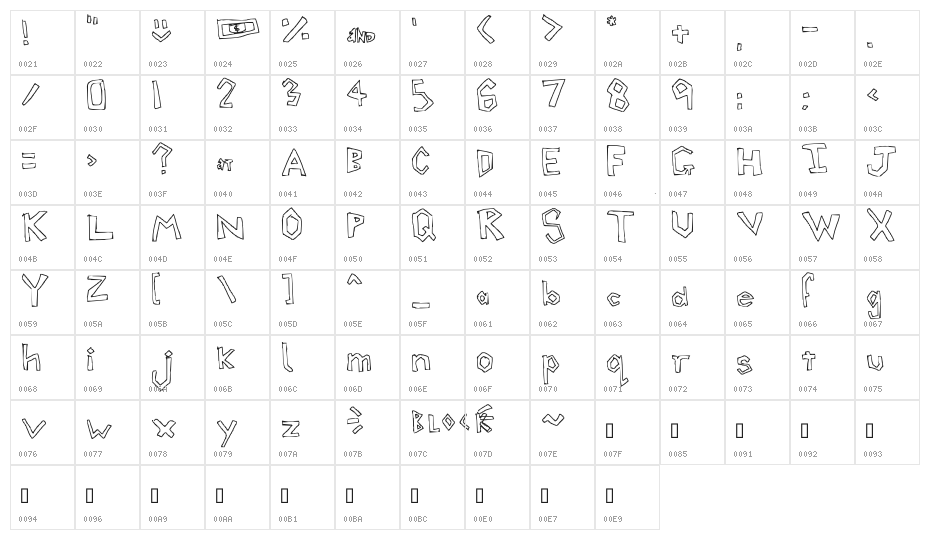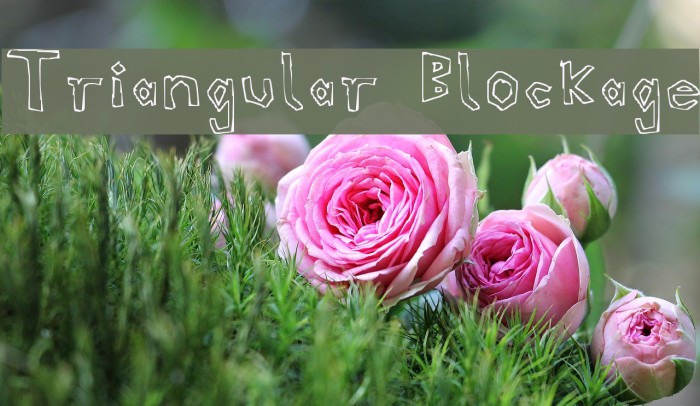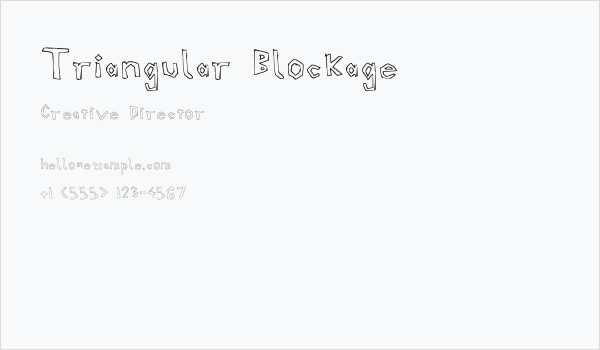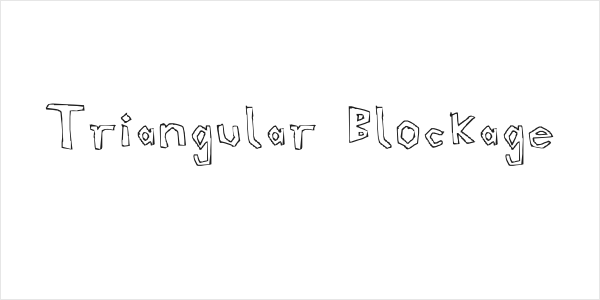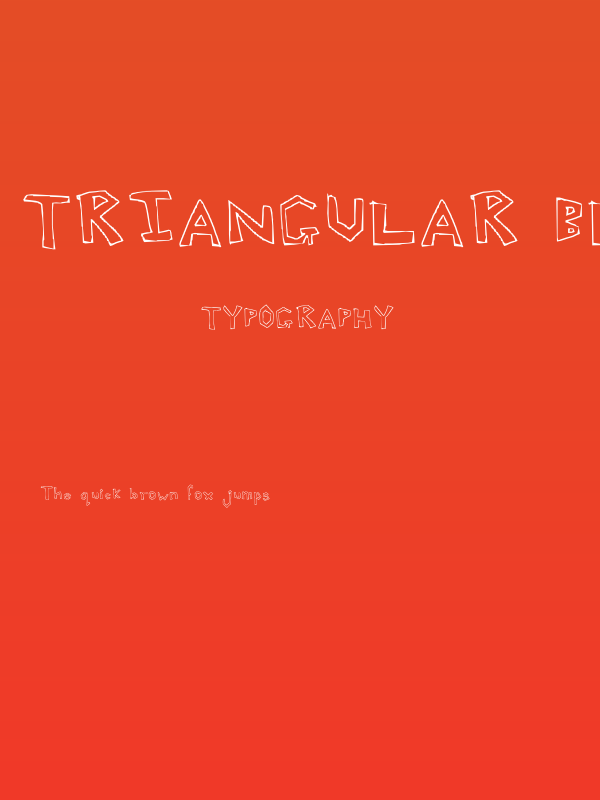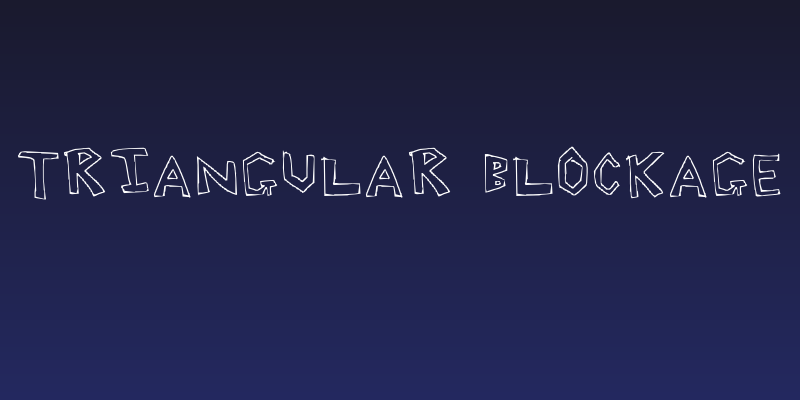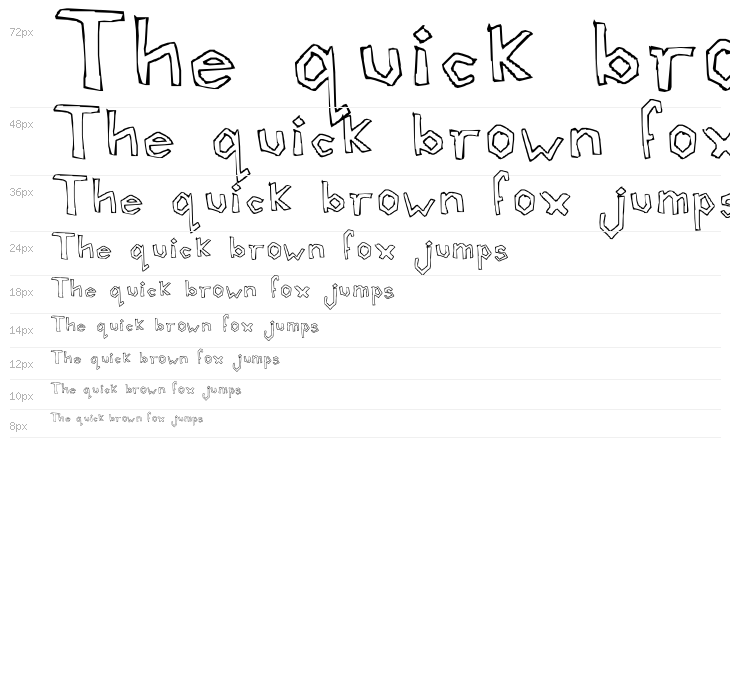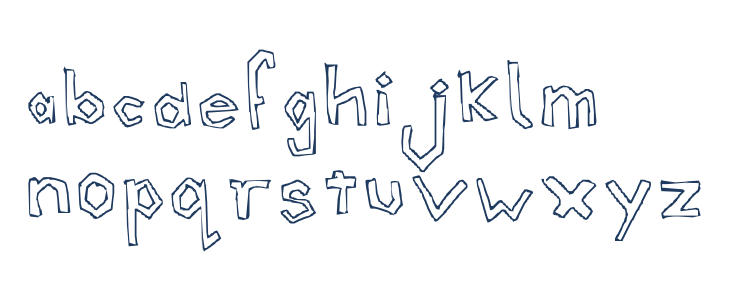
Triangular Blockage Font
Triangular Blockage Description
This font features a unique, hand-drawn style with a playful and irregular appearance. Each character is outlined with a bold, sketch-like quality, giving it a casual and artistic feel. The uppercase and lowercase letters maintain a consistent style, with angular and geometric shapes that resemble hand-drawn block letters. The numbers and special characters follow the same aesthetic, adding to the font's cohesive look. The overall design is reminiscent of doodles or graffiti, making it ideal for creative and informal projects.
TRIANGULAR-BLOCKAGE UPPERCASE
TRIANGULAR-BLOCKAGE LOWERCASE
TRIANGULAR-BLOCKAGE OTHER CHARS
| Proposed Projects | Perfect for children's book covers, comic strips, playful branding, and creative posters. |